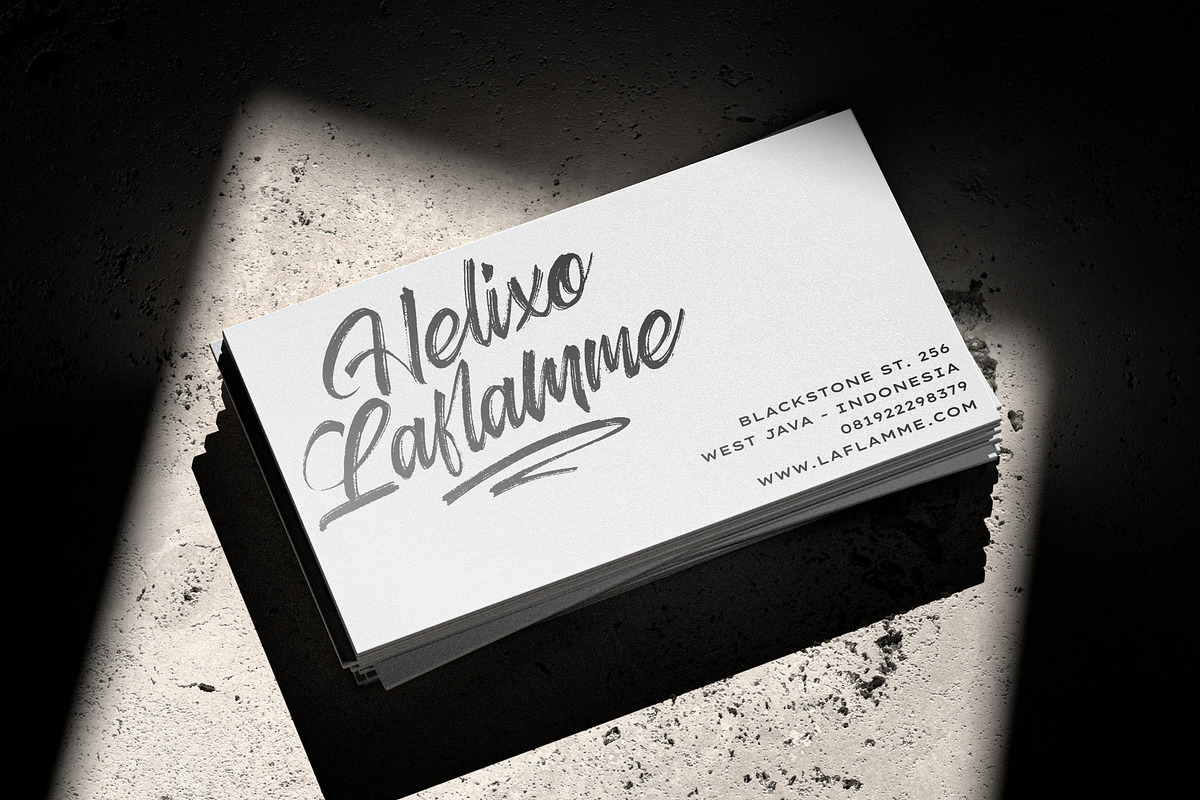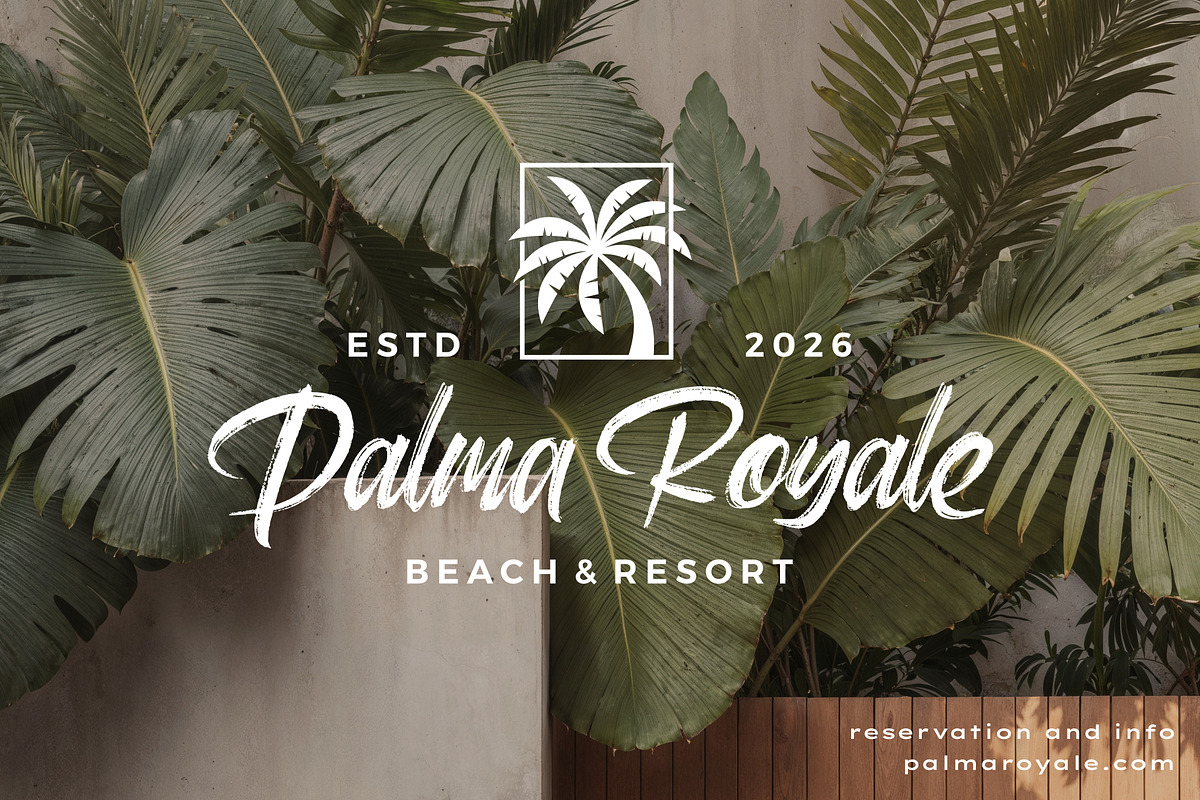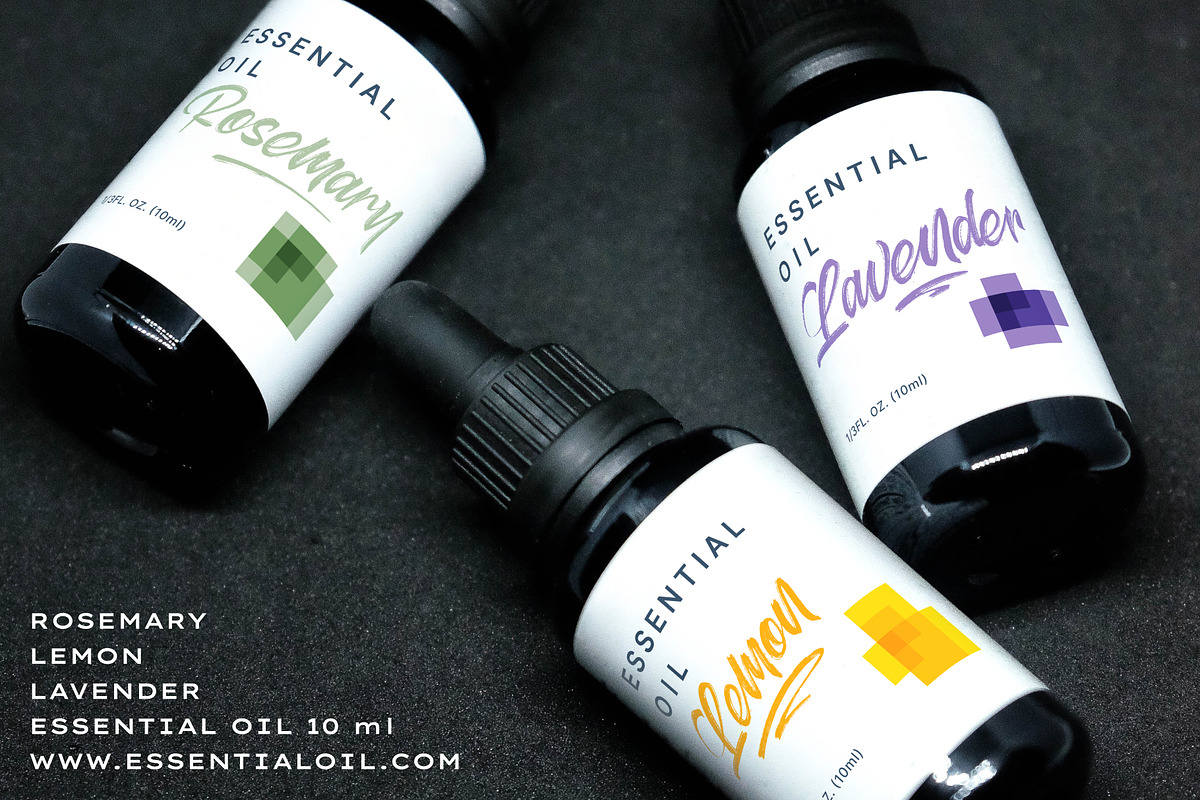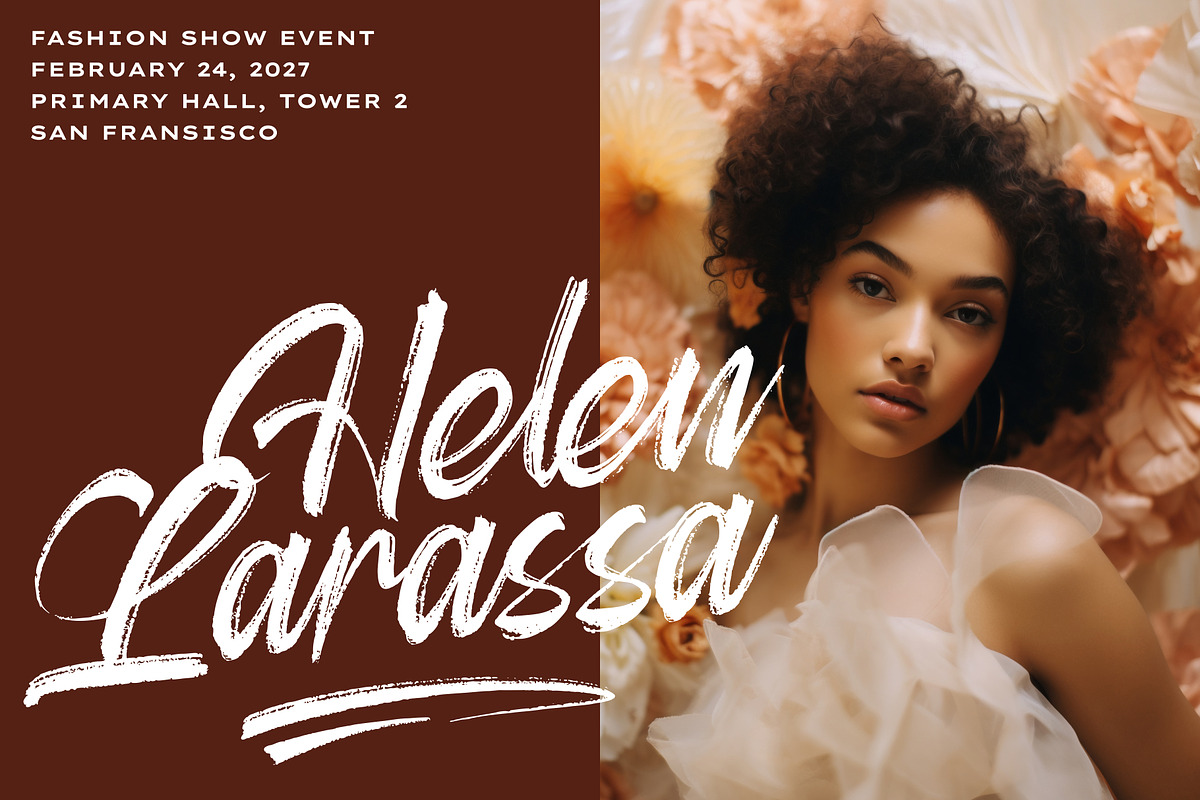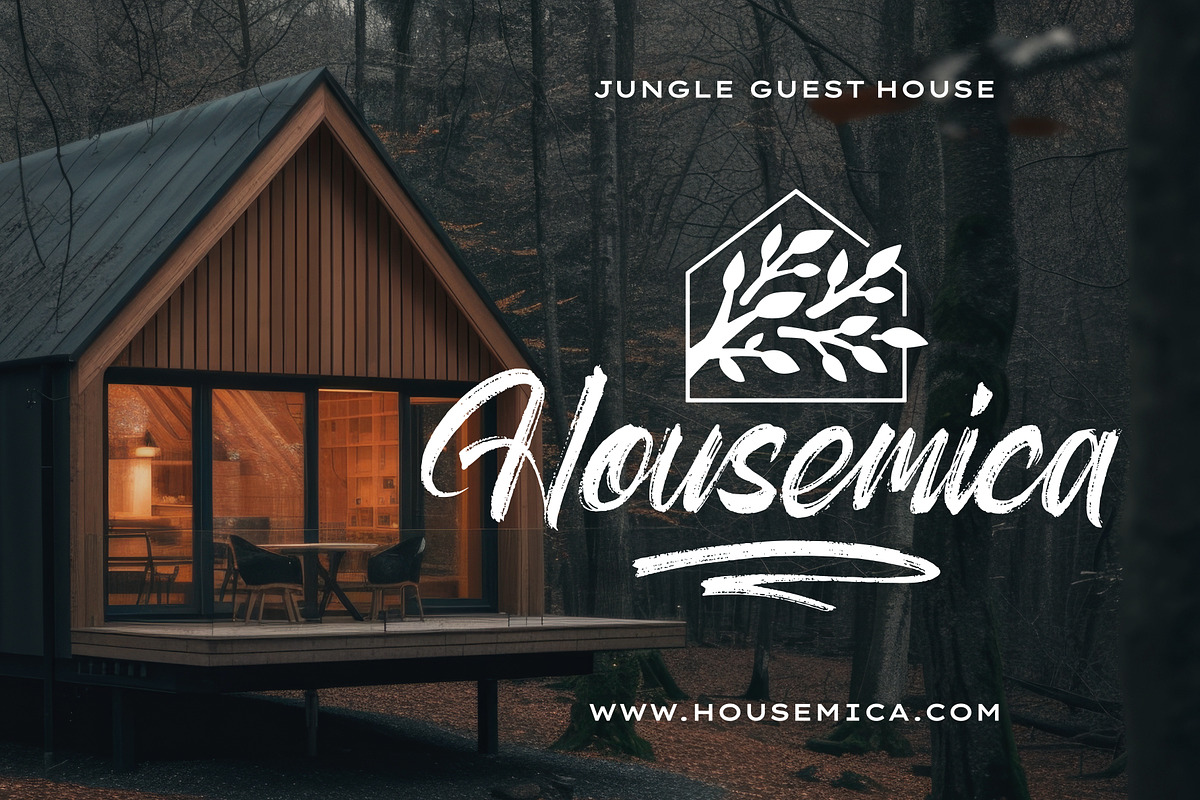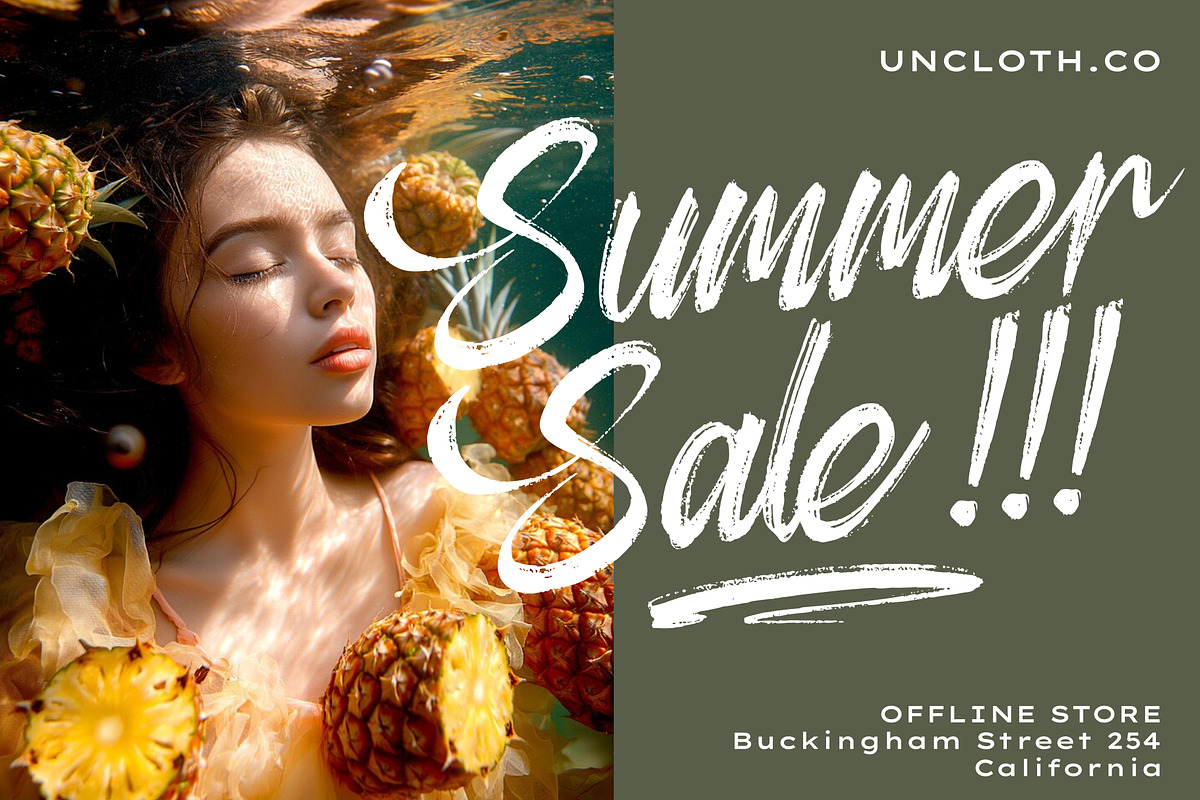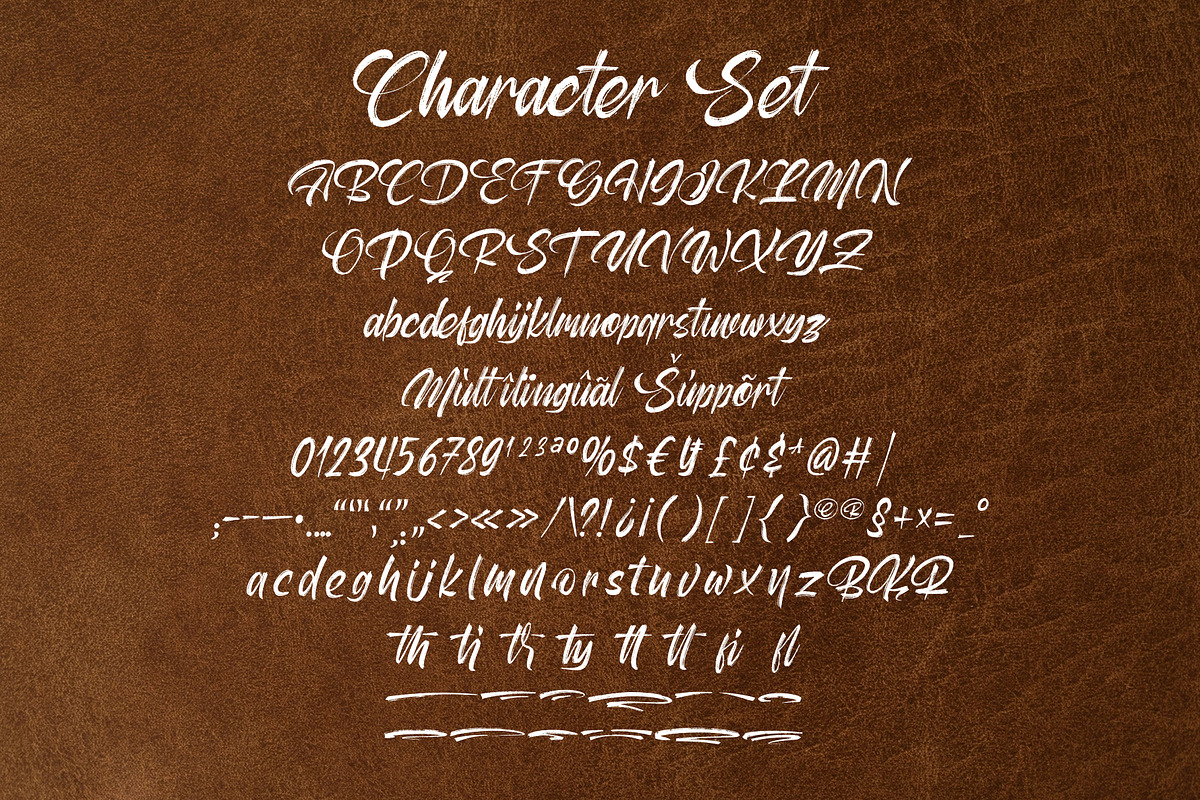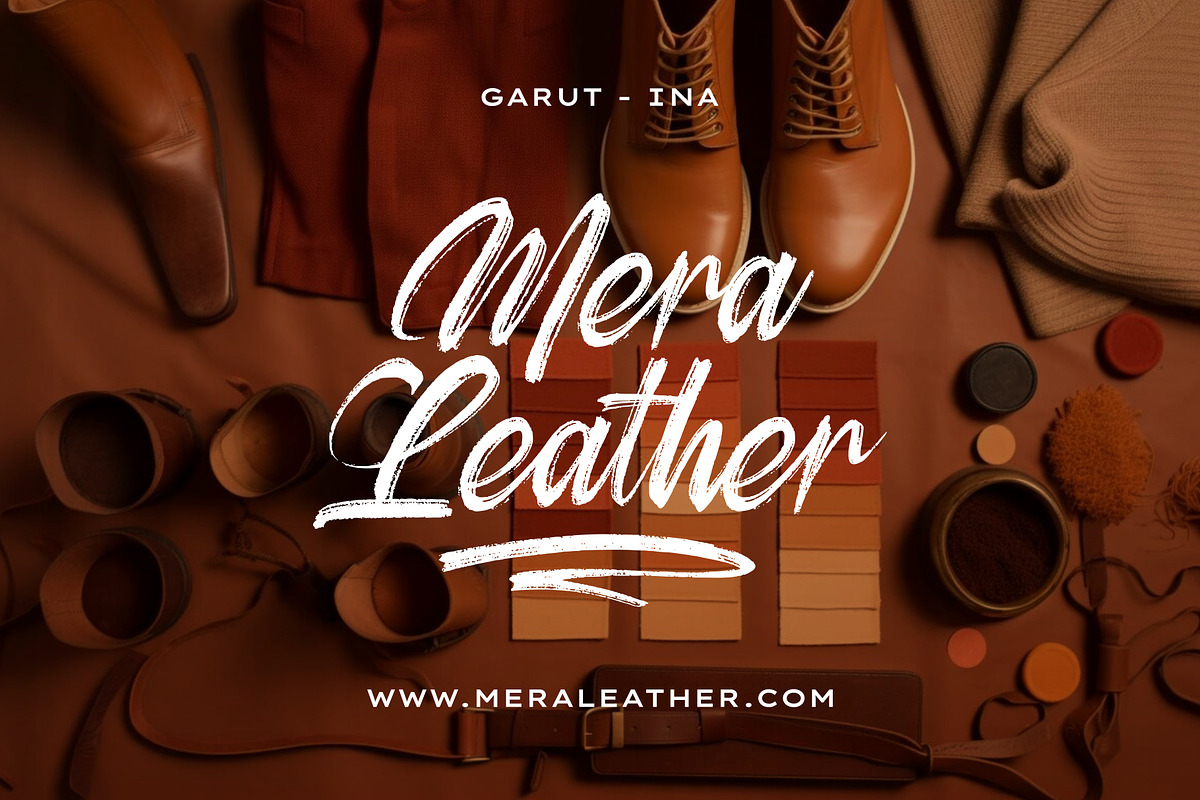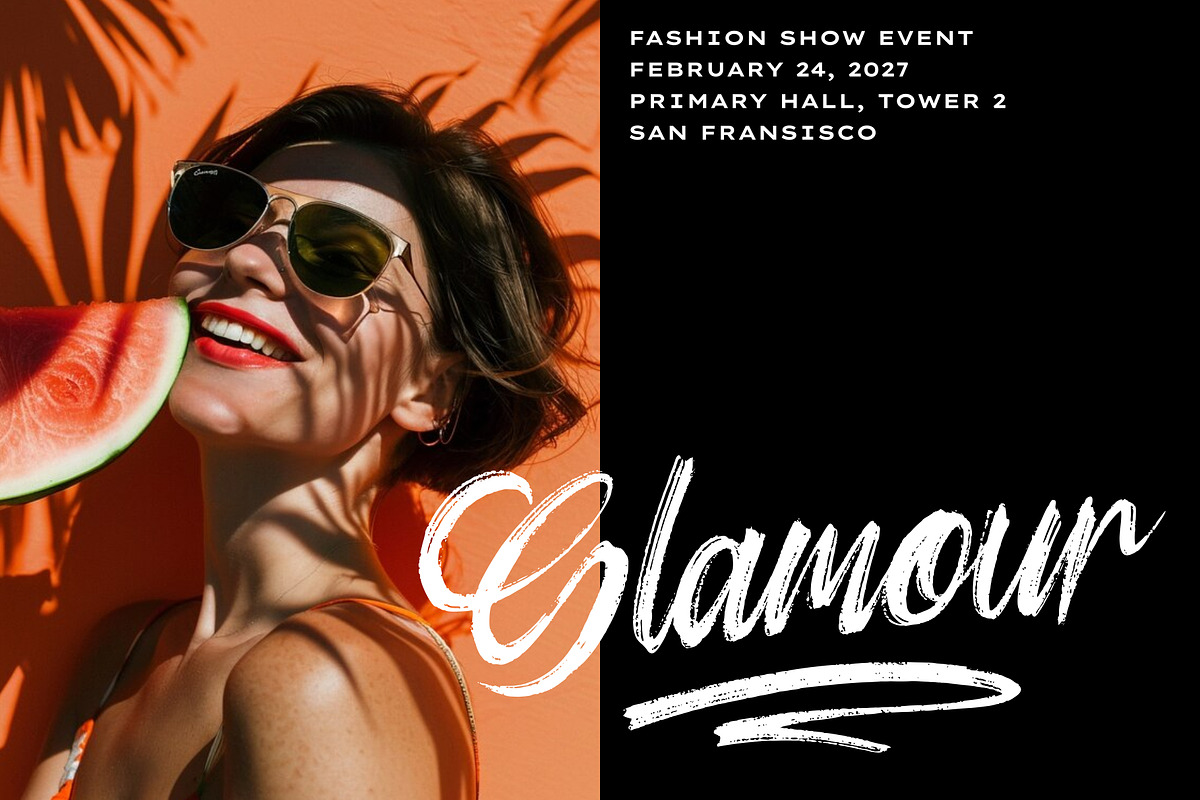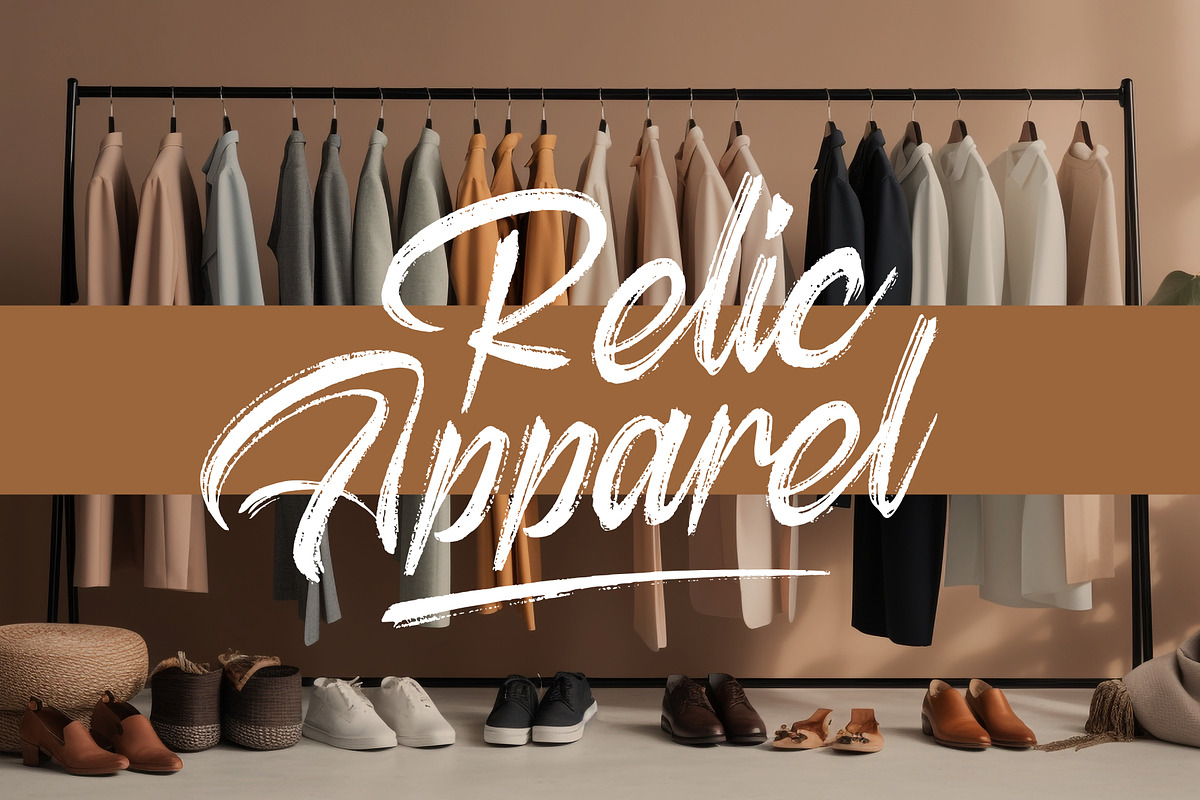
Aether Melodies - Elegant Brush Font
Aether Melodies – Elegant & Expressive Dry Brush Script Font
Aether Melodies is a graceful yet bold dry brush script font, crafted from hand-scanned brush strokes for an authentic, artistic touch. With its fluid, organic strokes and soft feminine energy, this font brings a sense of elegance and creativity to your designs.
Perfect for logos, boutique and apparel branding, food & beverage packaging, promotional campaigns, video titles, product branding, quotes, posters, flyers, t-shirts, and stylish text overlays. Aether Melodies blends raw brush texture with a refined, feminine charm.
- Handcrafted dry brush texture for a natural, artistic feel
- Feminine yet bold script style, perfect for stylish branding
- Versatile for digital and print designs
- Ideal for adding a soft yet confident touch to any project